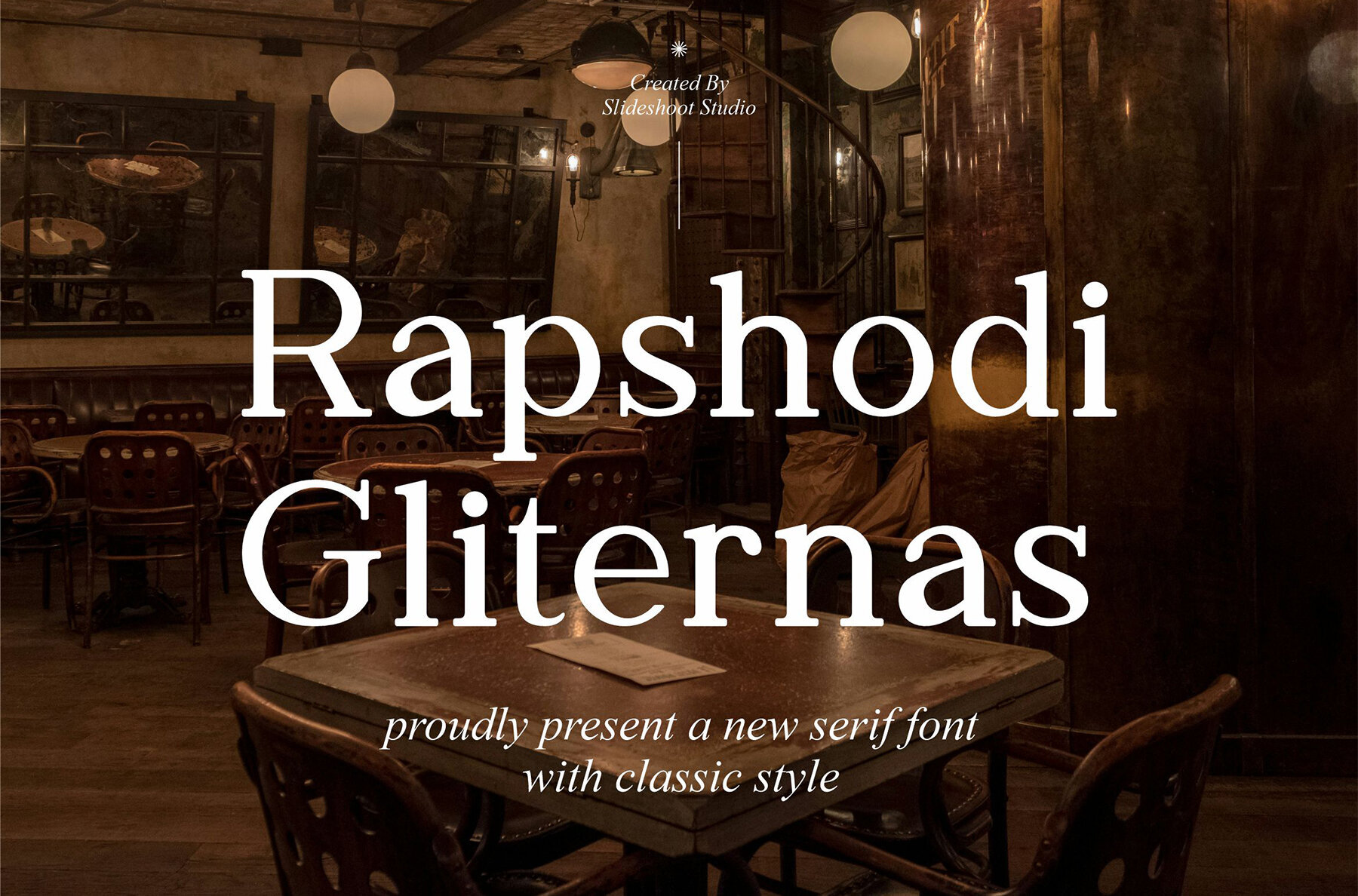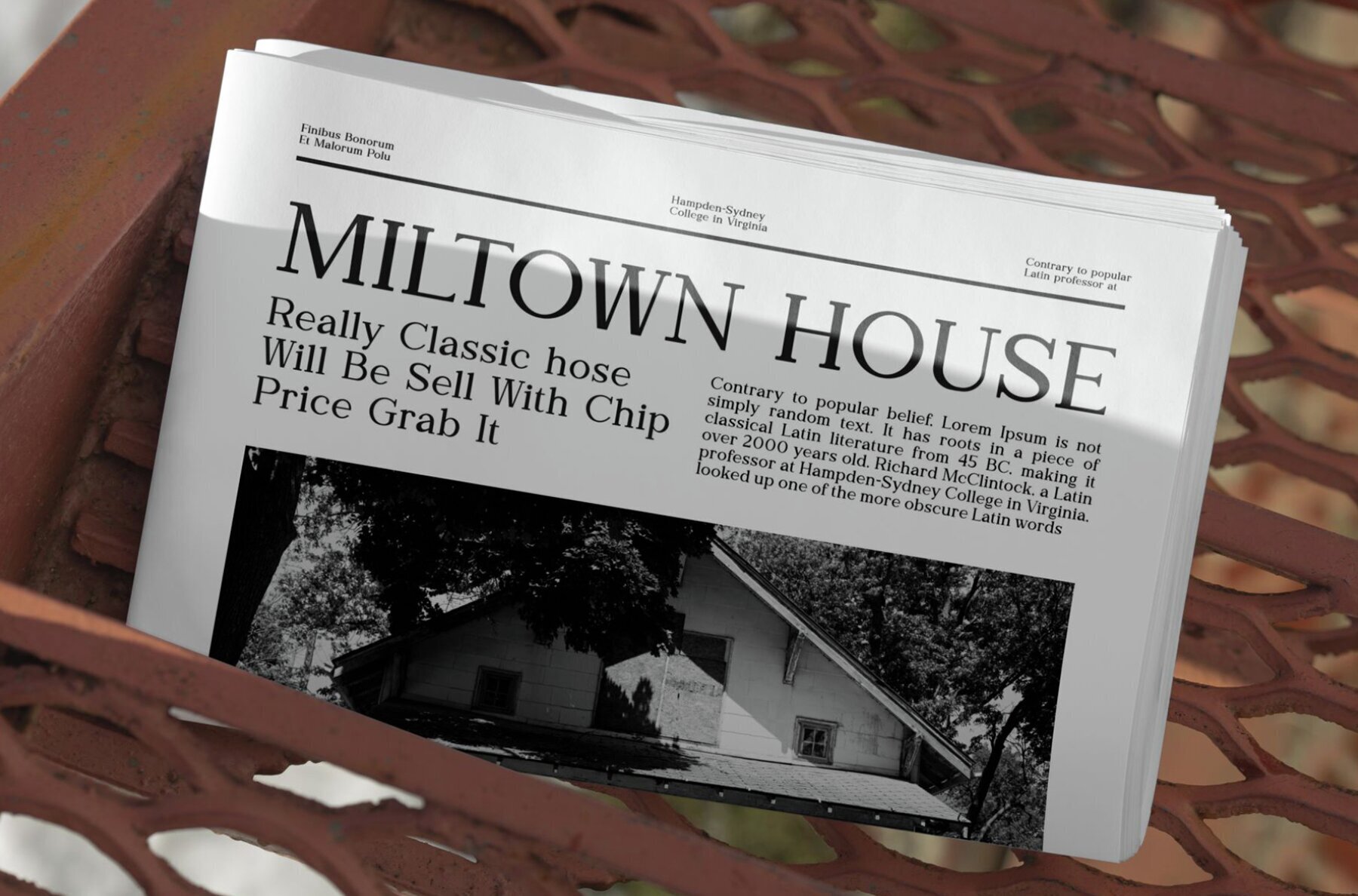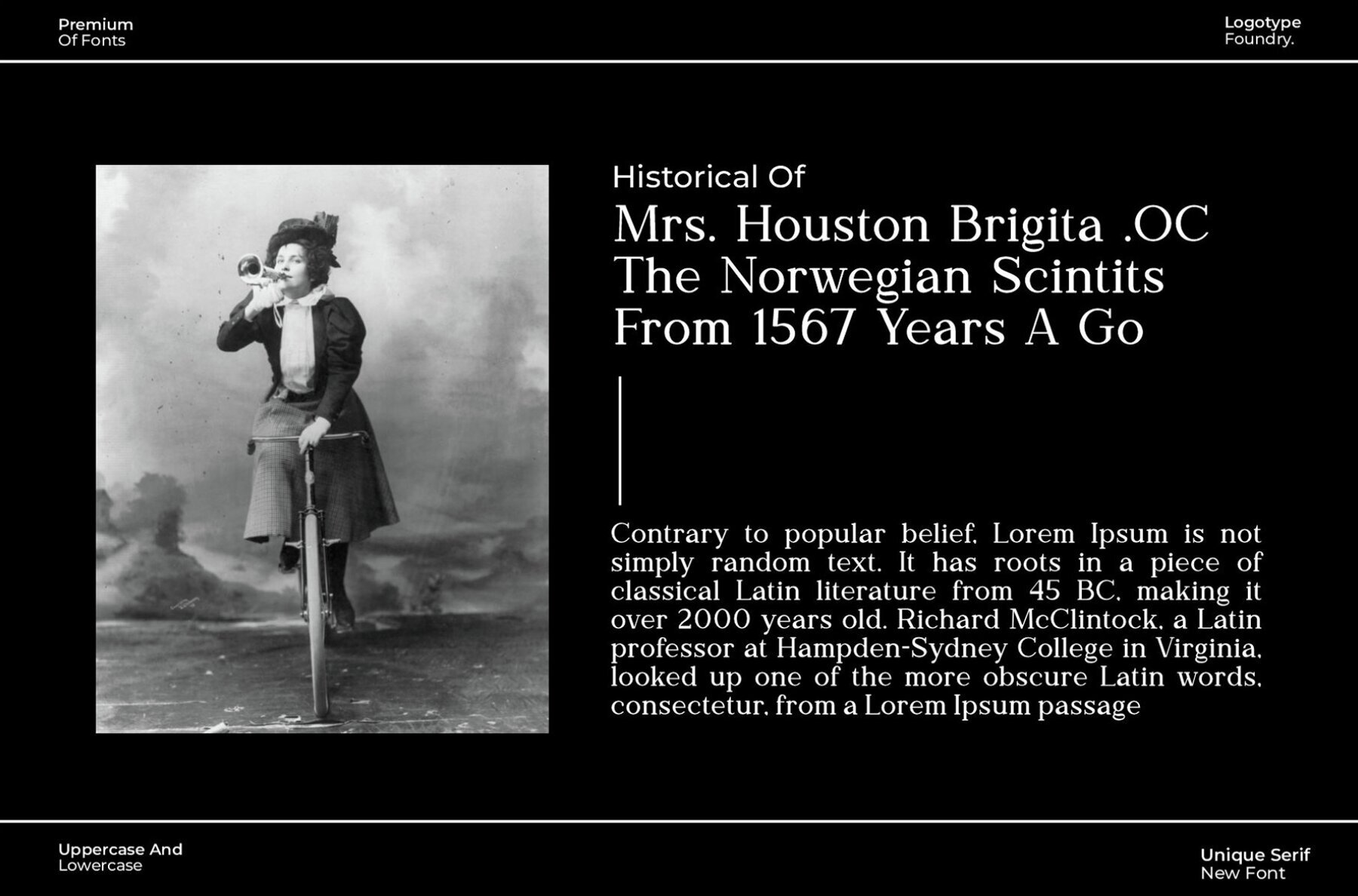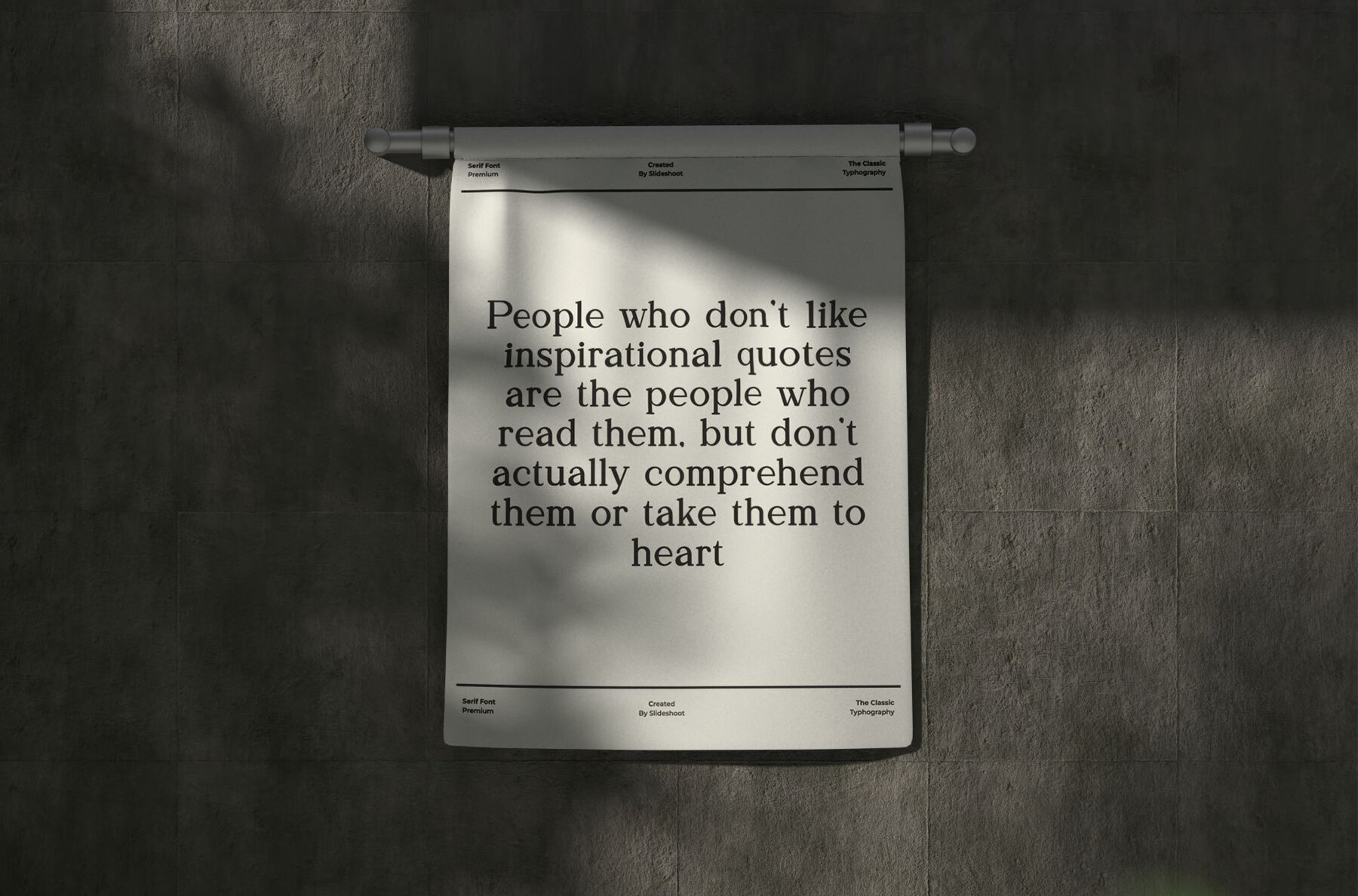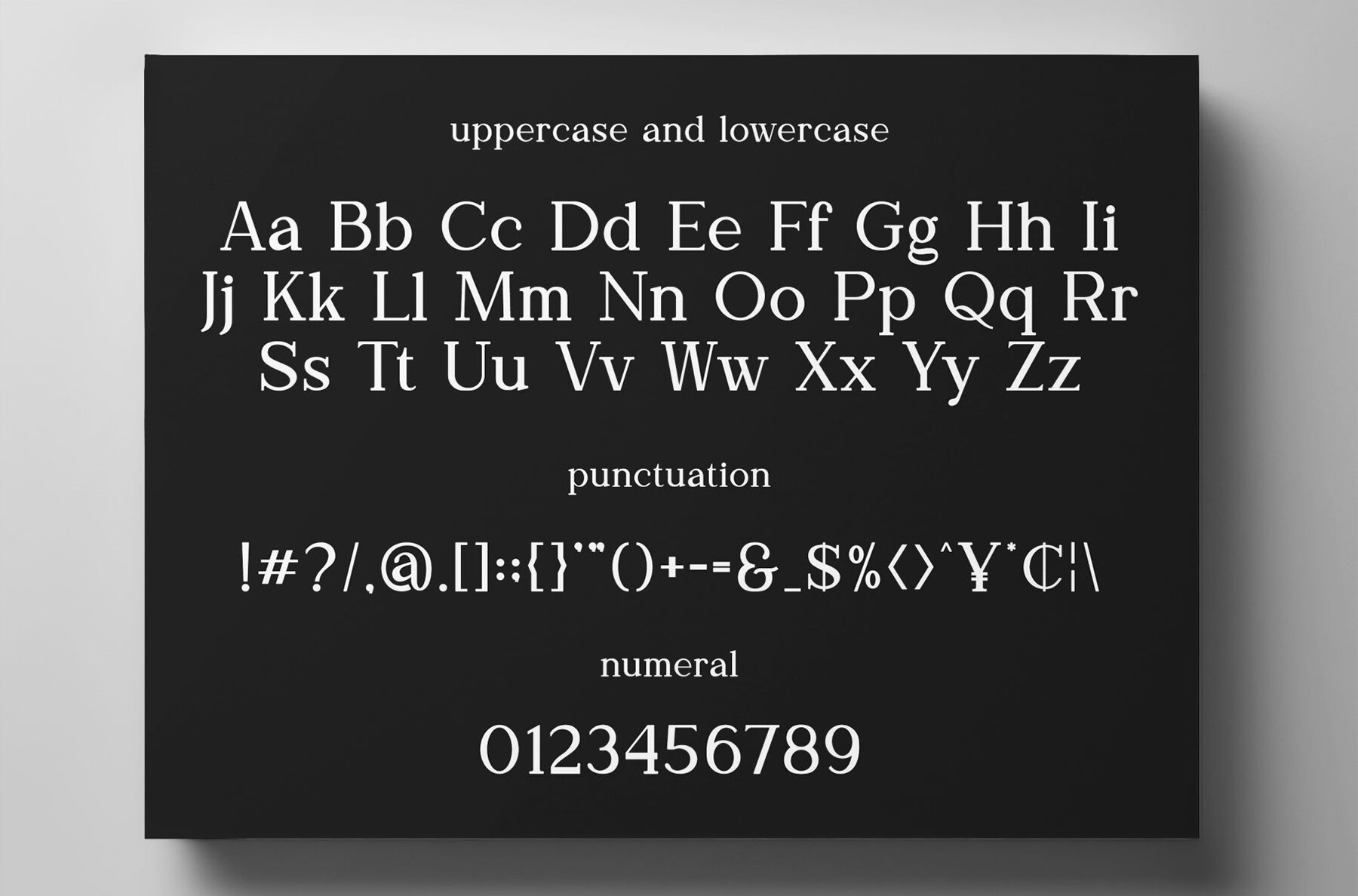
Rapshodi Gliternas Font
Rapshodi Gliternas
Raphsodi Gliternas offers a serif font that gracefully balances classic style with a modern twist. This trendy and bouncy display font stands out with its unique wood-themed character. It creates an inviting atmosphere, making it an ideal choice for a myriad of designs. Whether you're crafting elegant invitation cards, designing striking company logos, curating memorable movie titles, or developing professional business cards, this font enhances your creative projects effortlessly.Raphsodi Gliternas: A Stylish Serif with Classic Flair